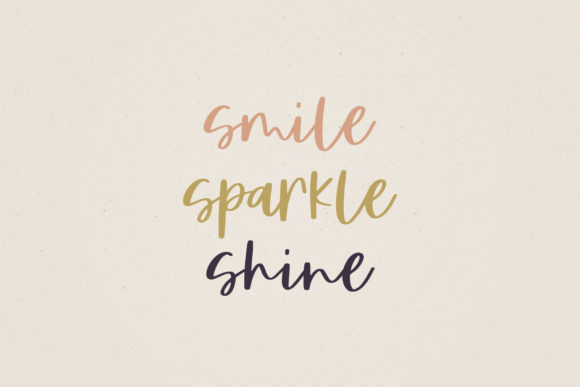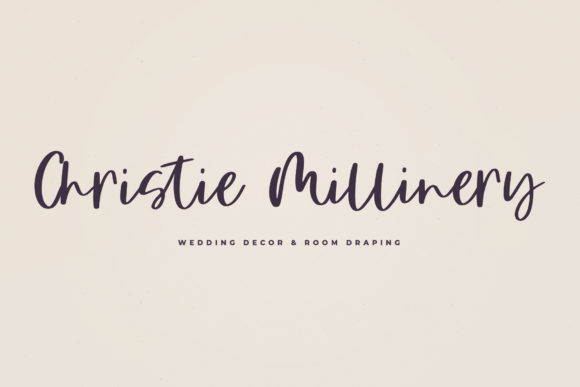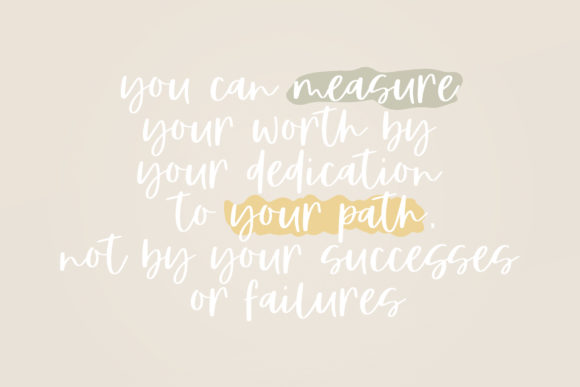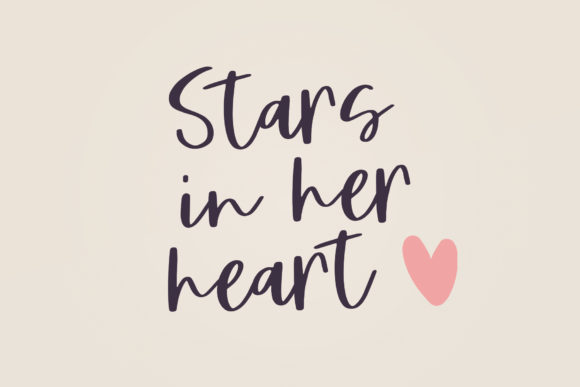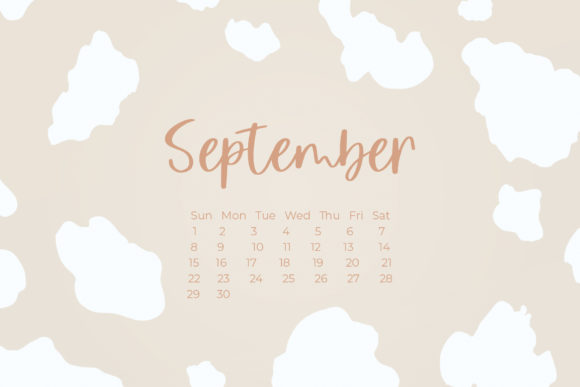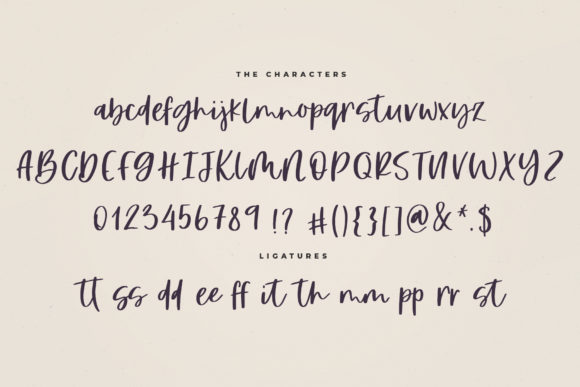
Introduction to Hey Babes Font Font
Fonts play a crucial role in design, and the Hey Babes Font font is a typeface that brings both character and versatility to any project. Whether you’re working on a branding project, a website, or a print design, the Hey Babes Font font offers a unique style that can elevate your work.
Hey Babes is a fun and relaxed handwritten font.
A bit sloppy and asymmetrical, this font will fit each of your casual design ideas .
Key Features of Hey Babes Font Font
Why Choose Hey Babes Font Font?
The Hey Babes Font font is more than just a typeface – it’s a design tool that helps you communicate your message with style and clarity. Its unique character set and versatile design make it suitable for a wide range of applications, from elegant invitations to bold headlines.
With its carefully crafted letterforms and balanced proportions, the Hey Babes Font font ensures readability and visual appeal across all mediums.
What makes Hey Babes Font font special?
The Hey Babes Font font stands out with its unique design, exceptional readability, and versatility across various design applications.